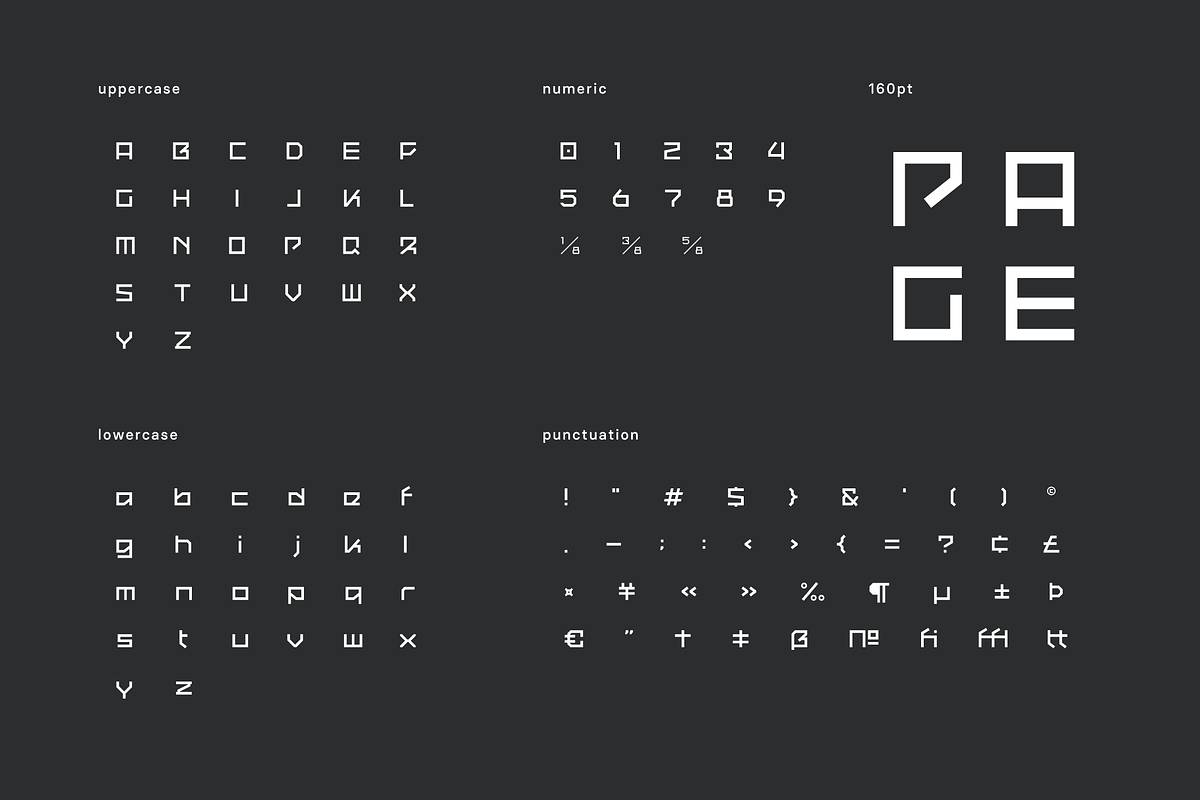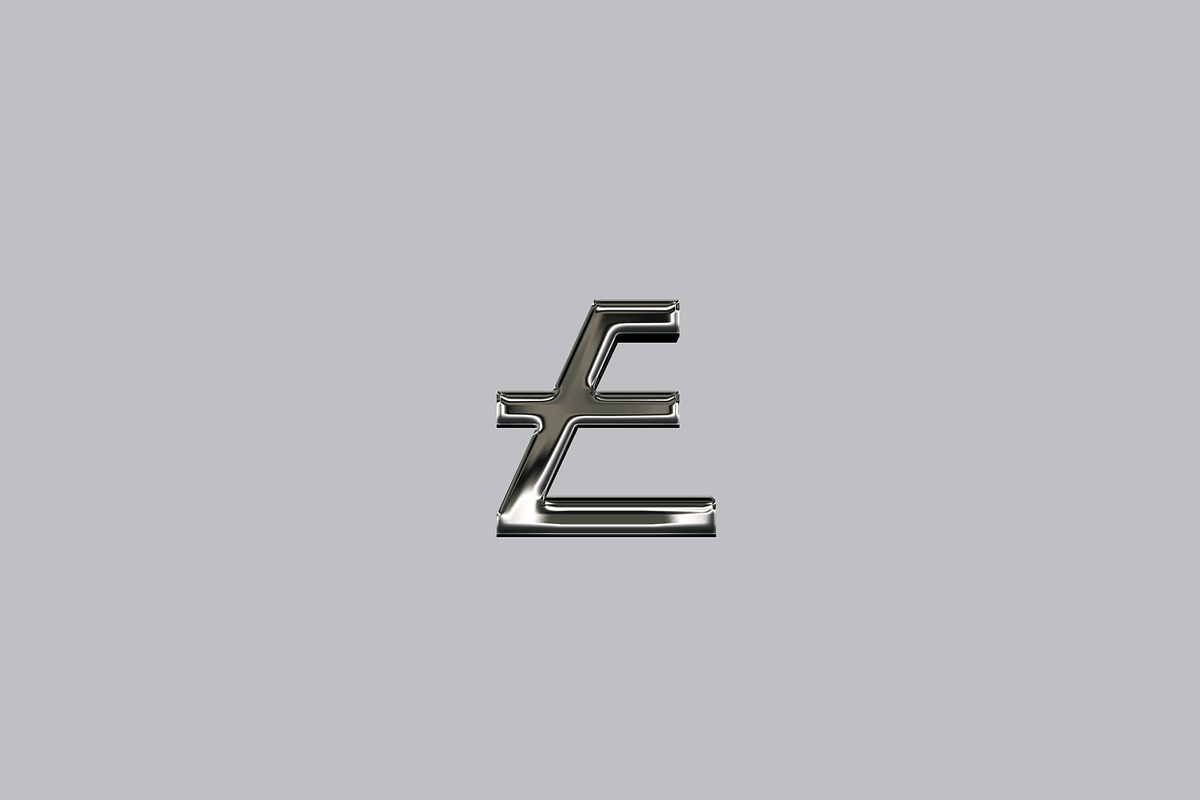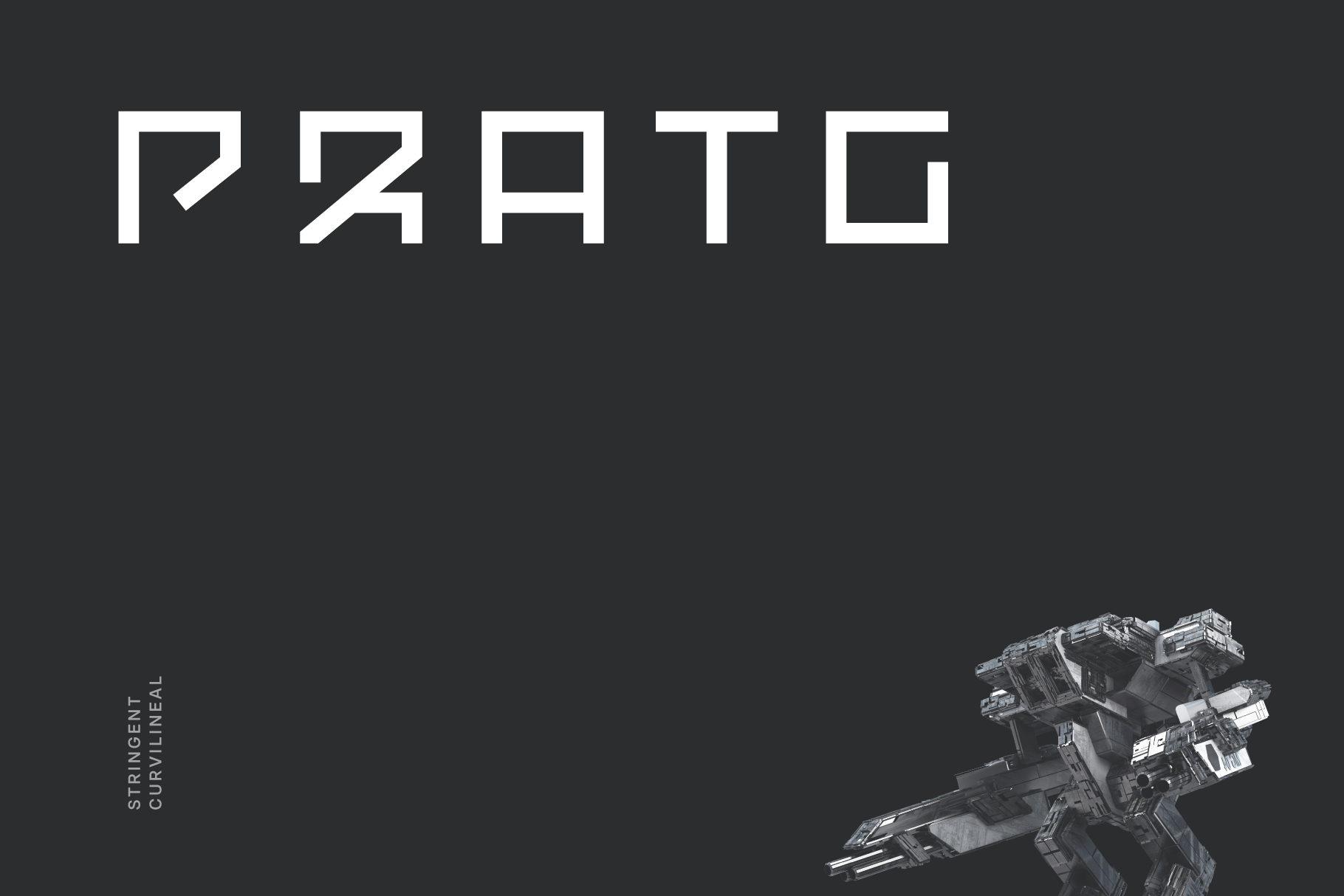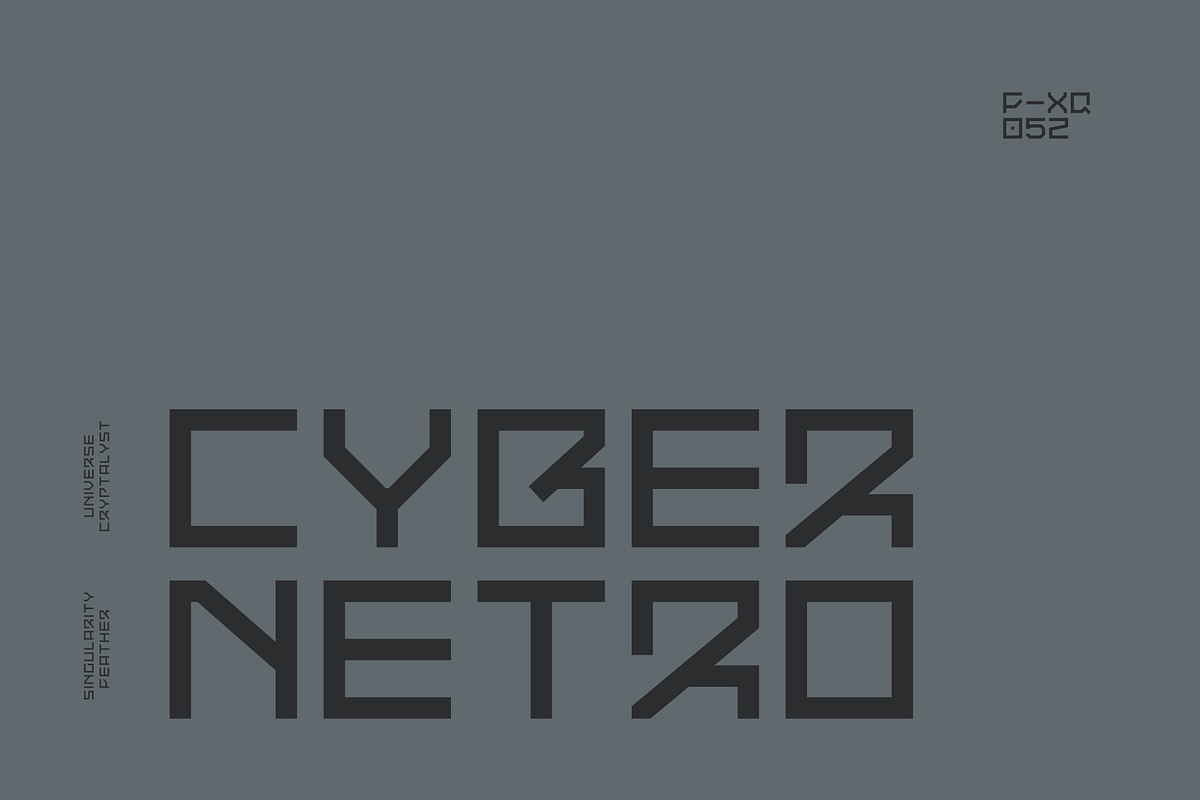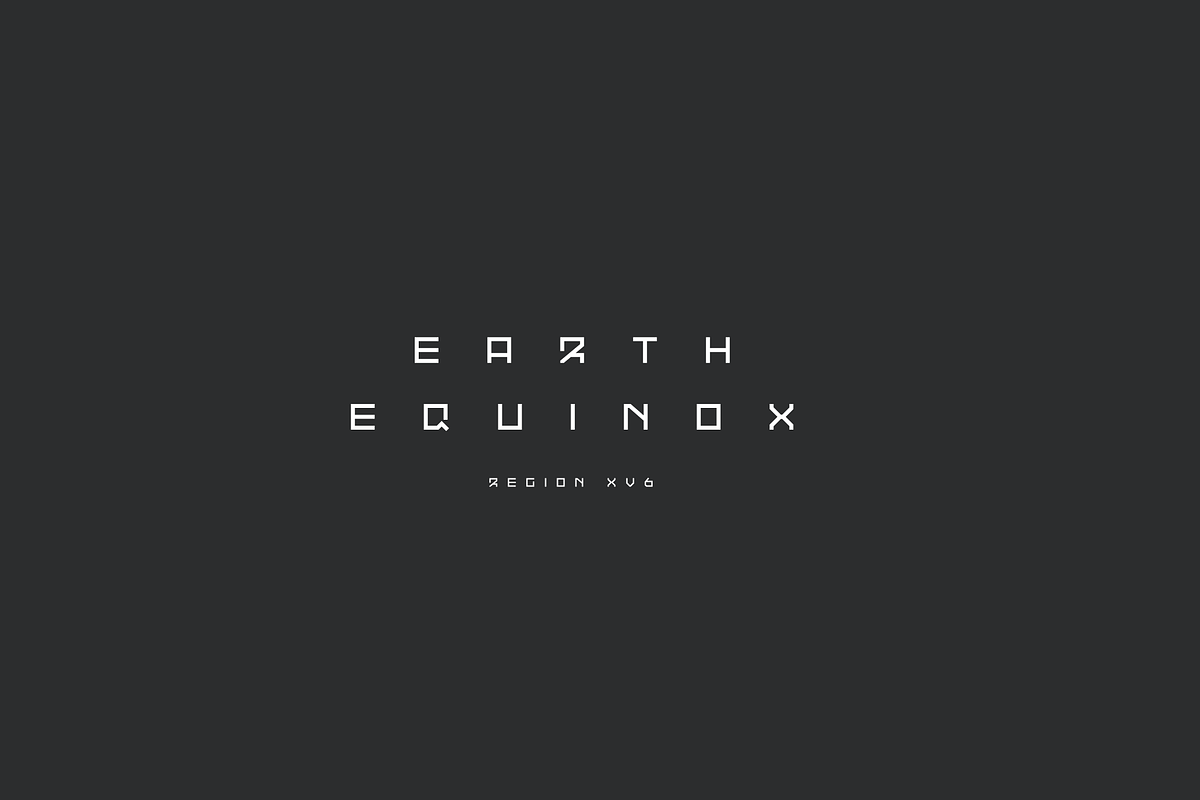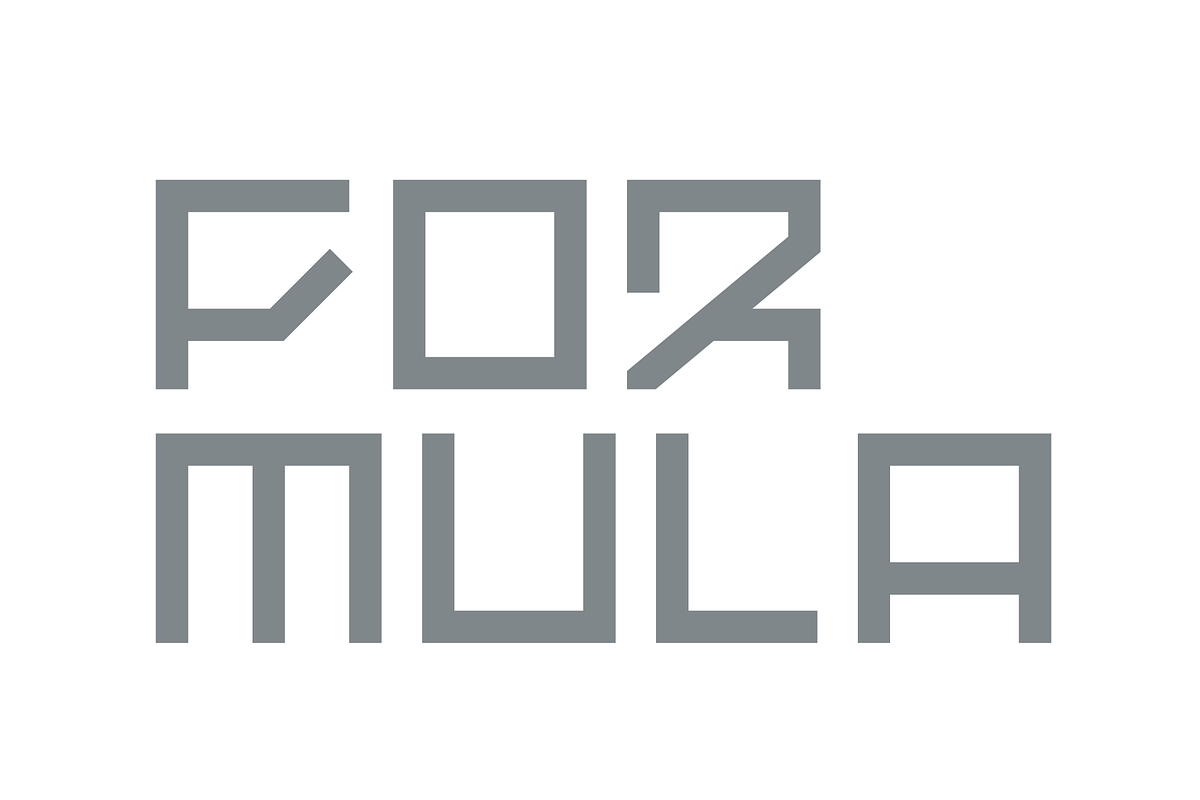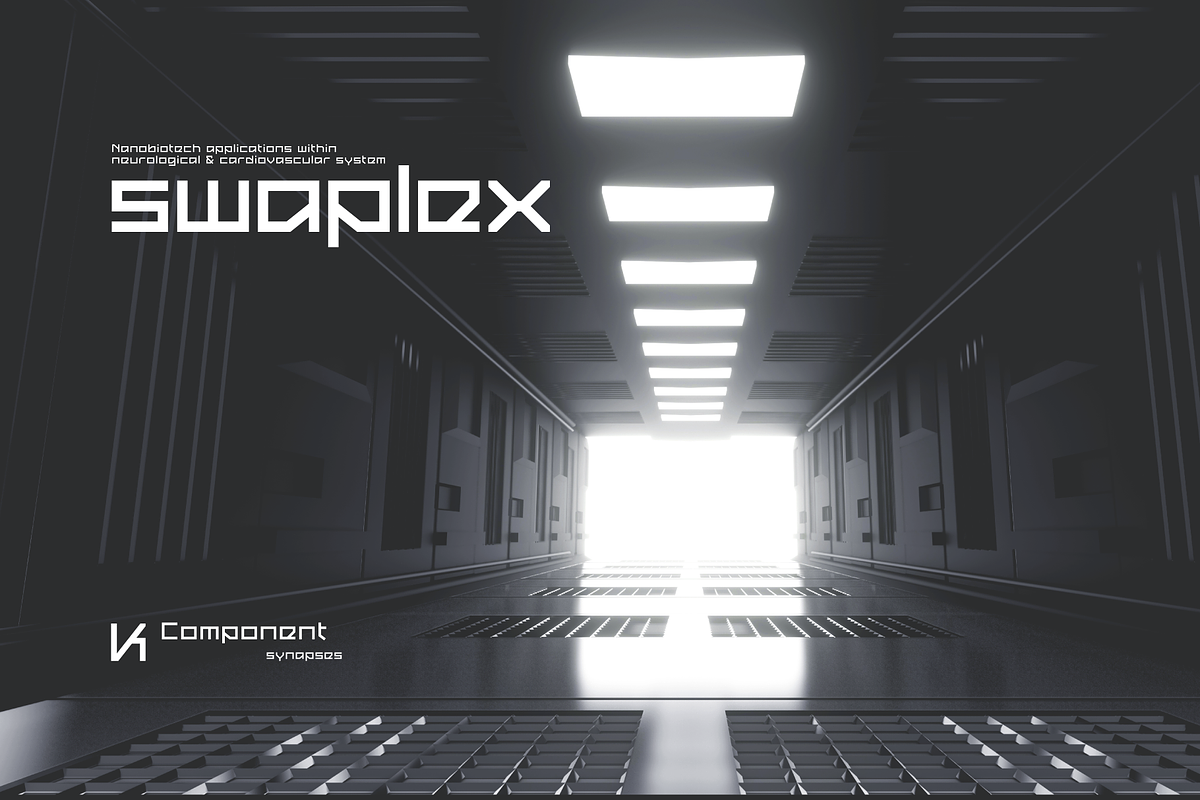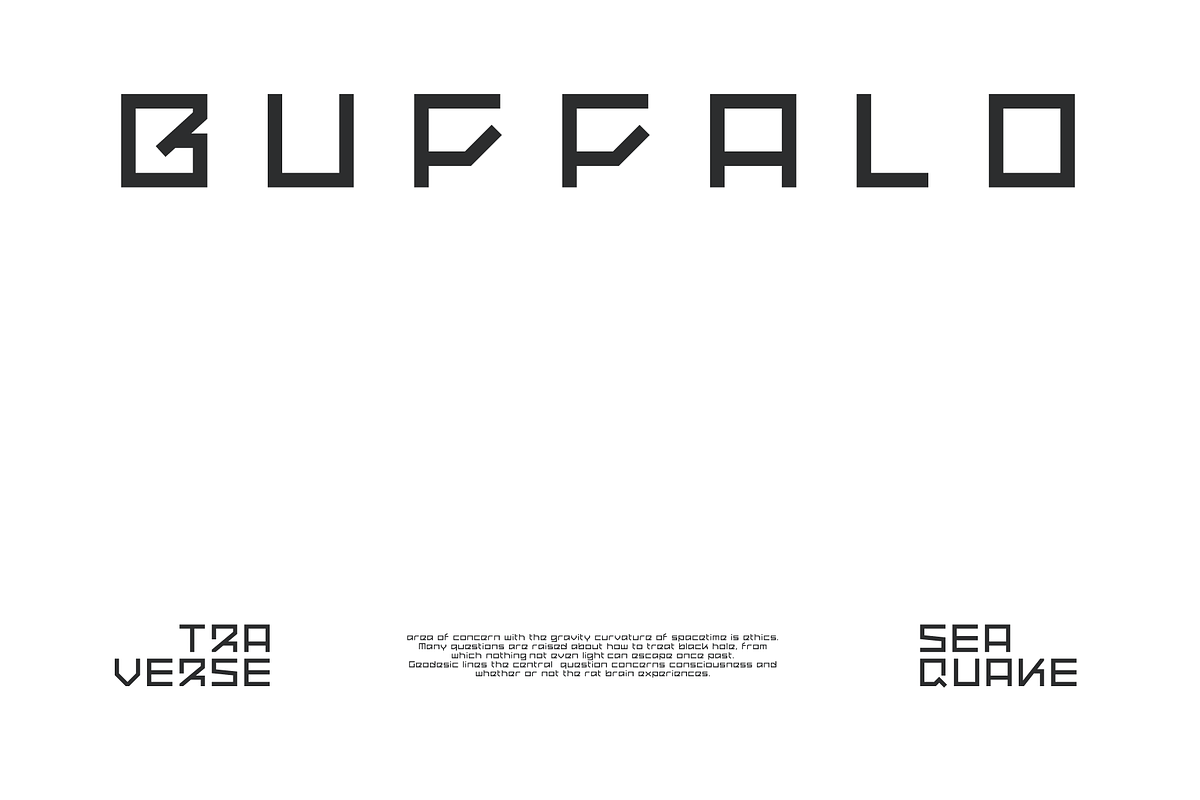
Pratg Futuristic Tech Font
Pratg is a stringent curvilineal tech display typeface apt for headline, editorial, branding, packaging, printed materials and typographic applications. 150+ glyphs with ligatures and fractions provided in opentype .otf and .woff format.